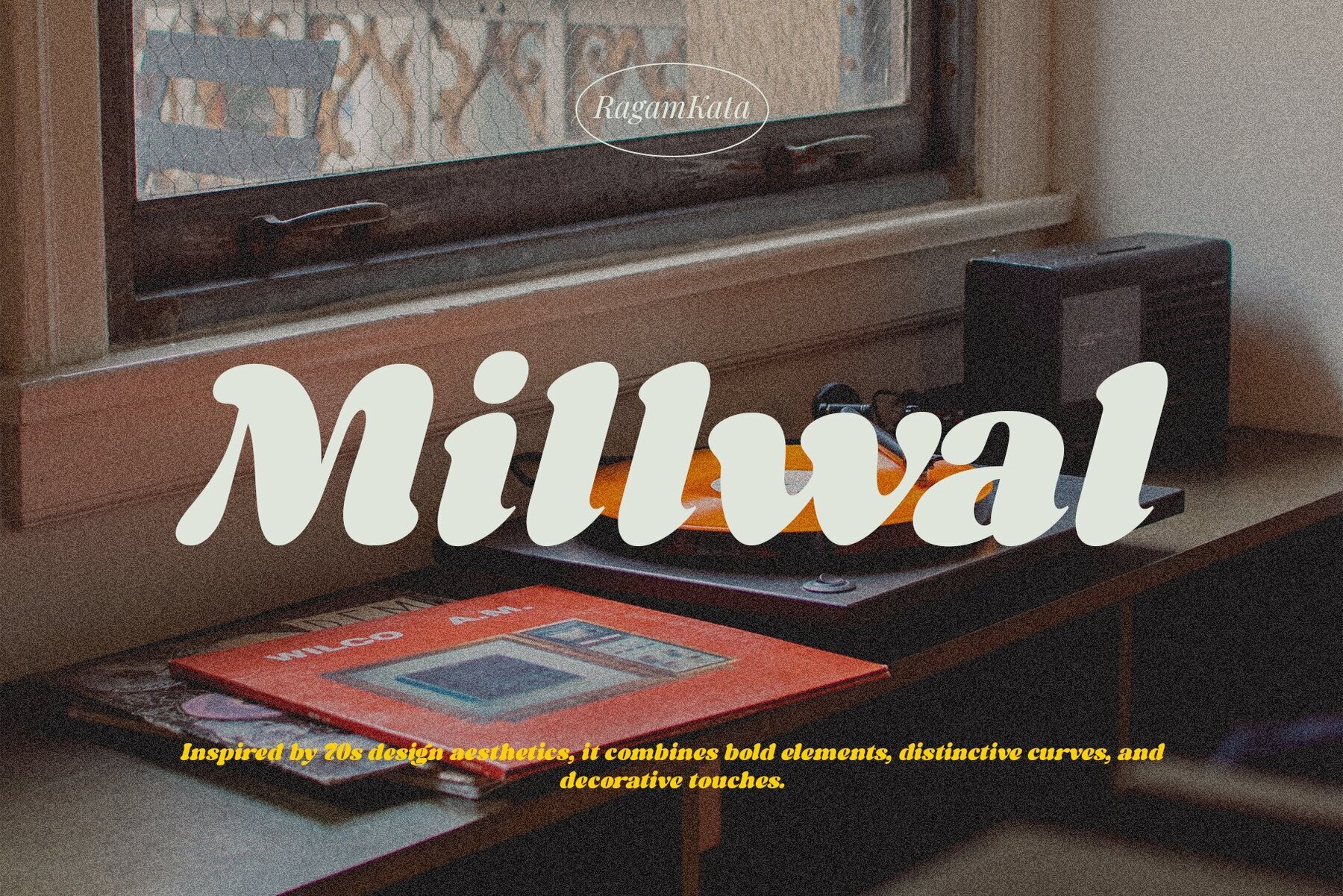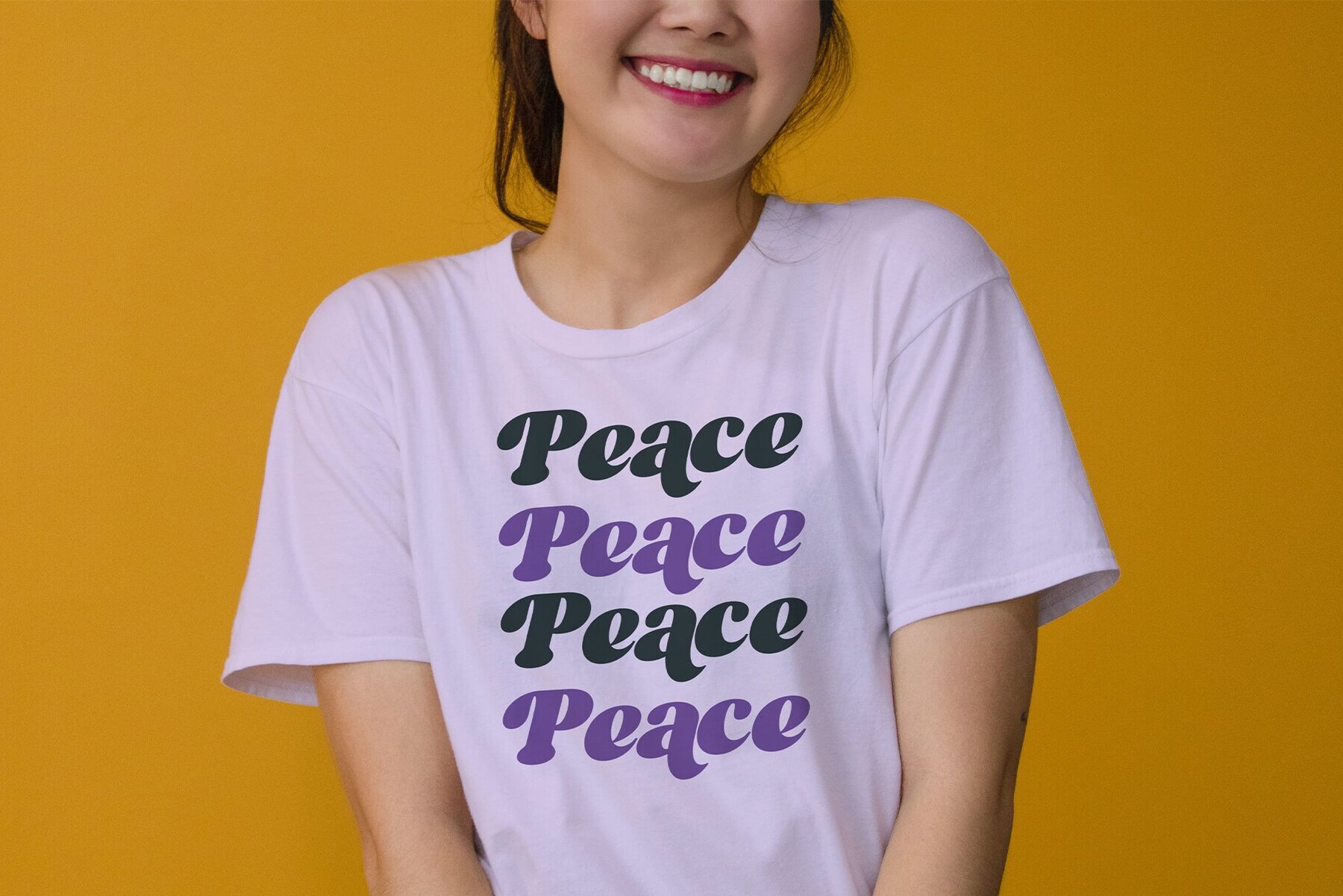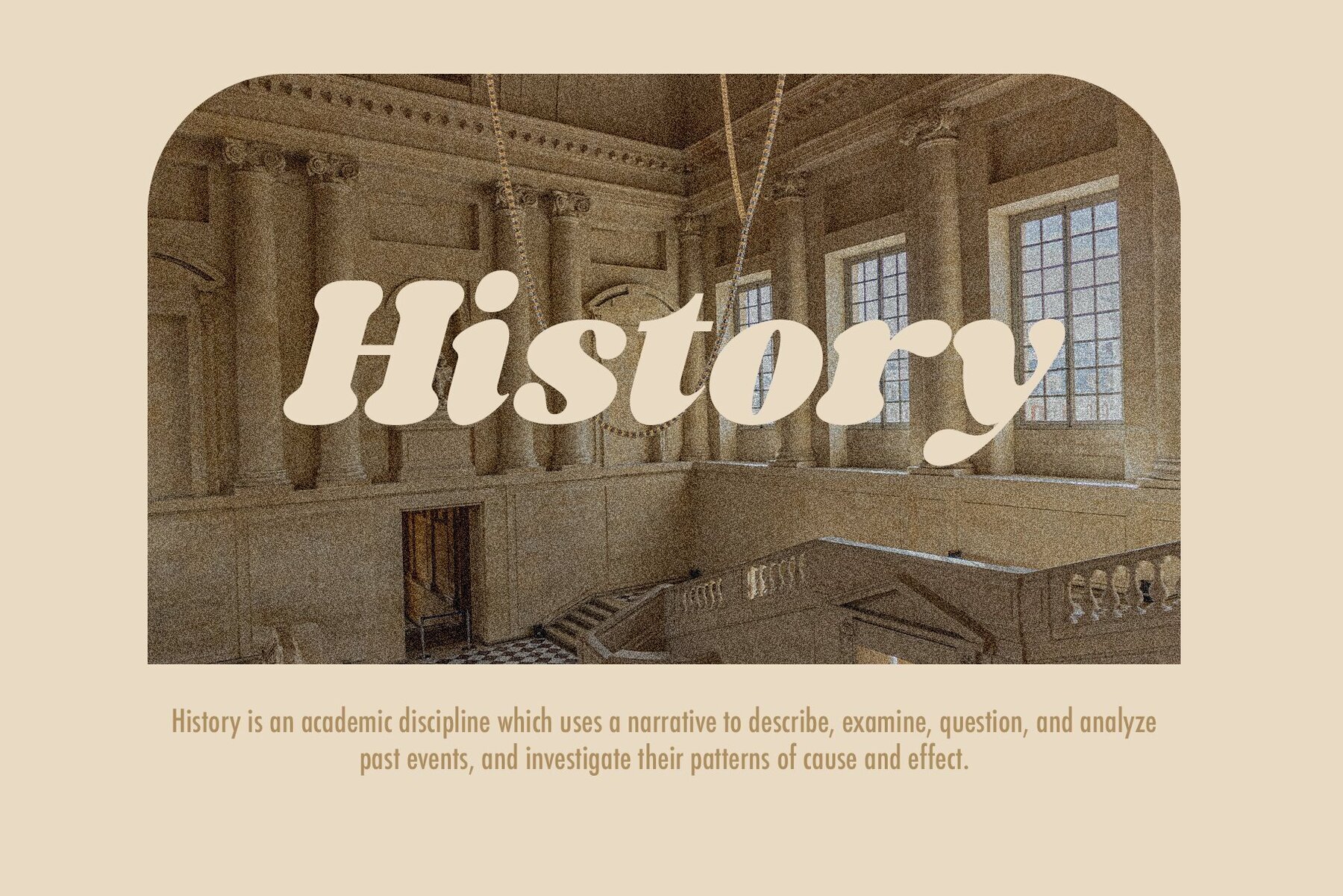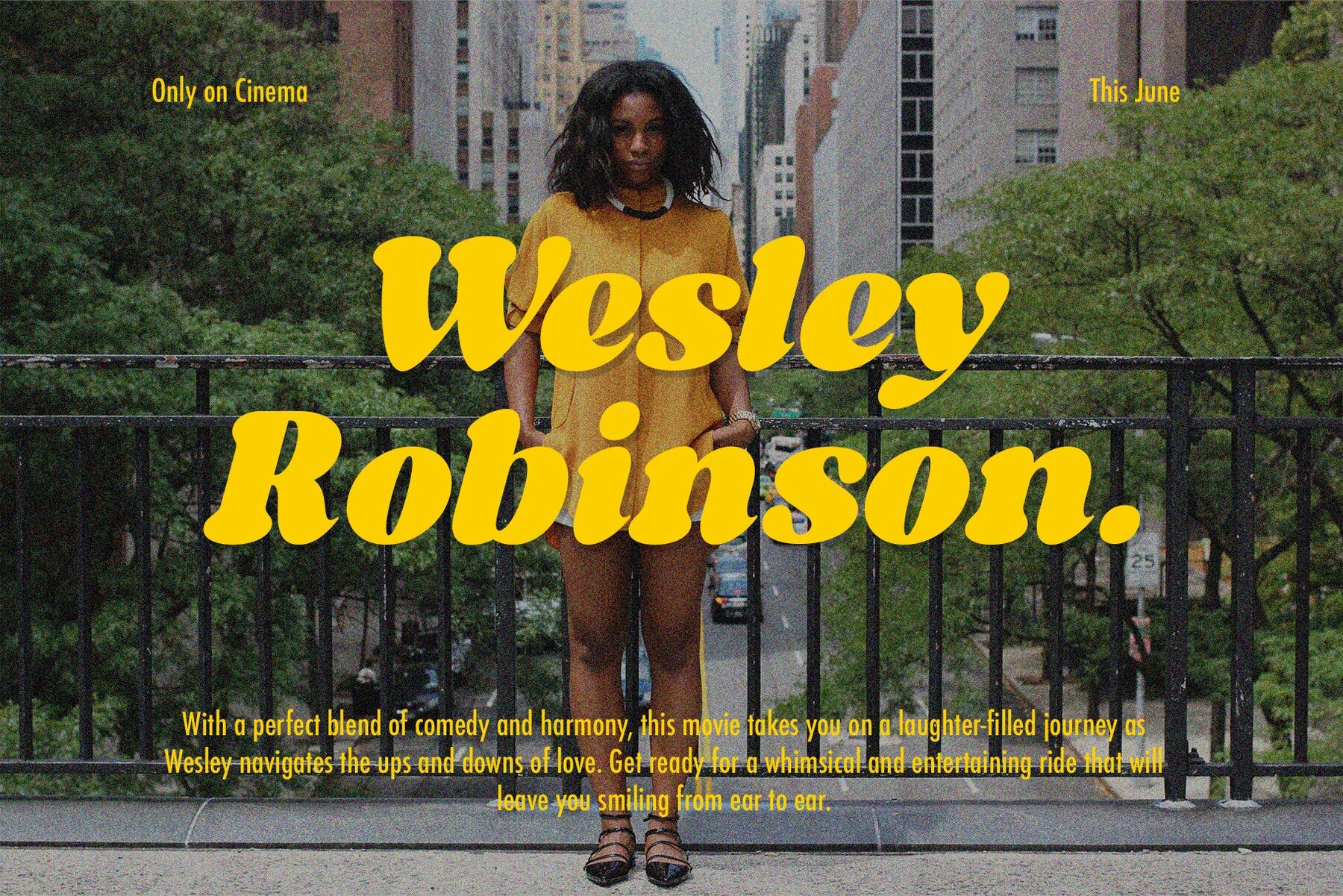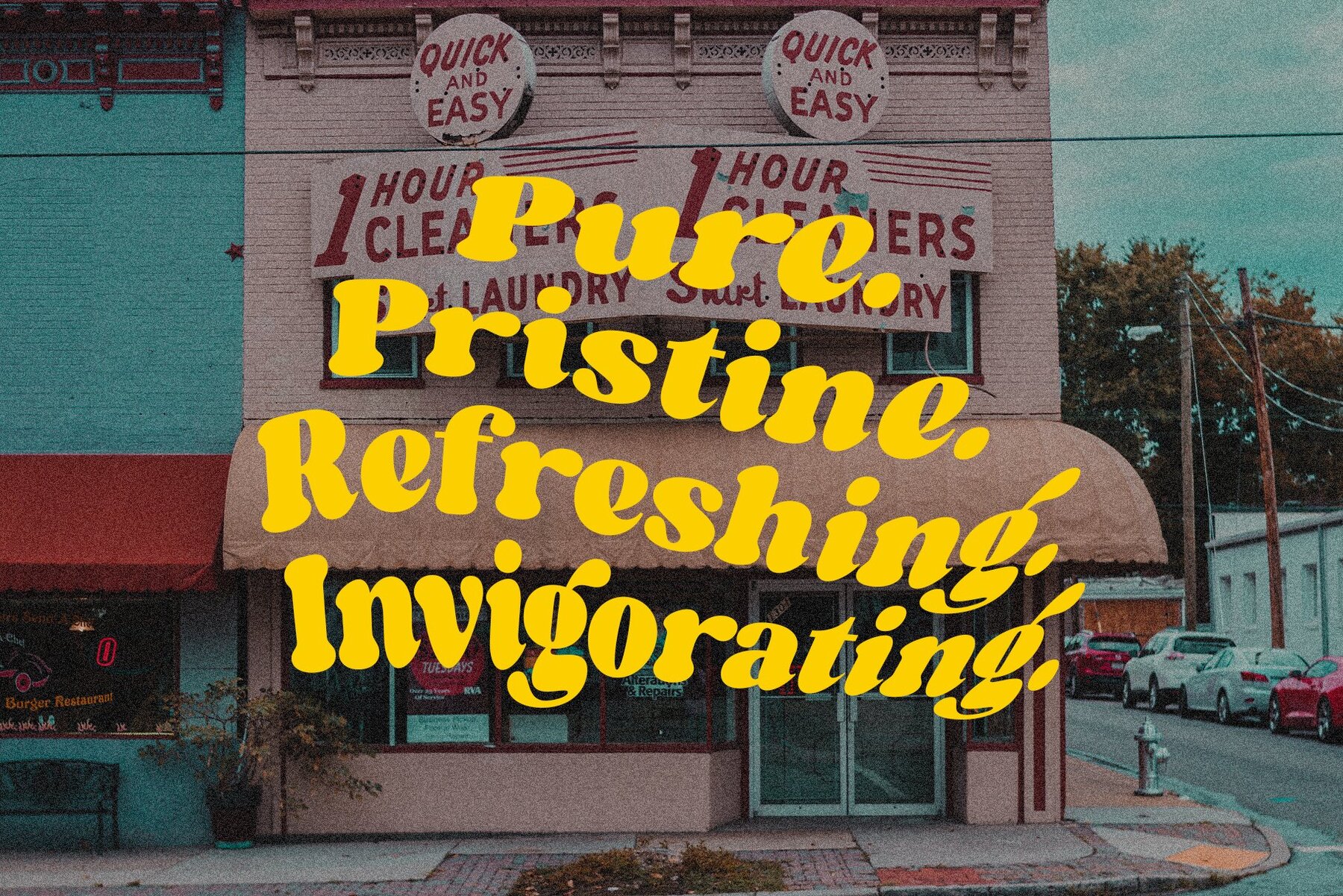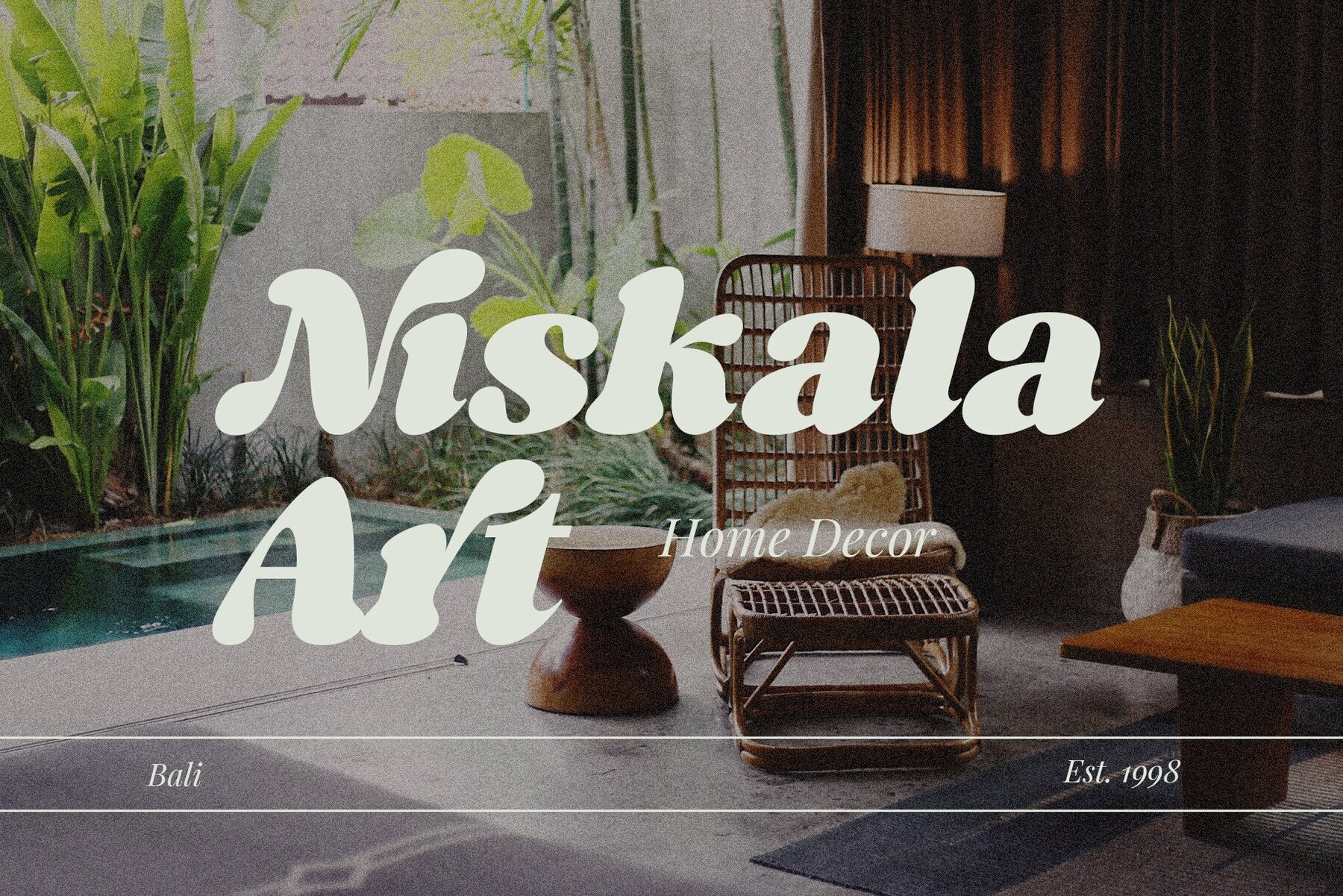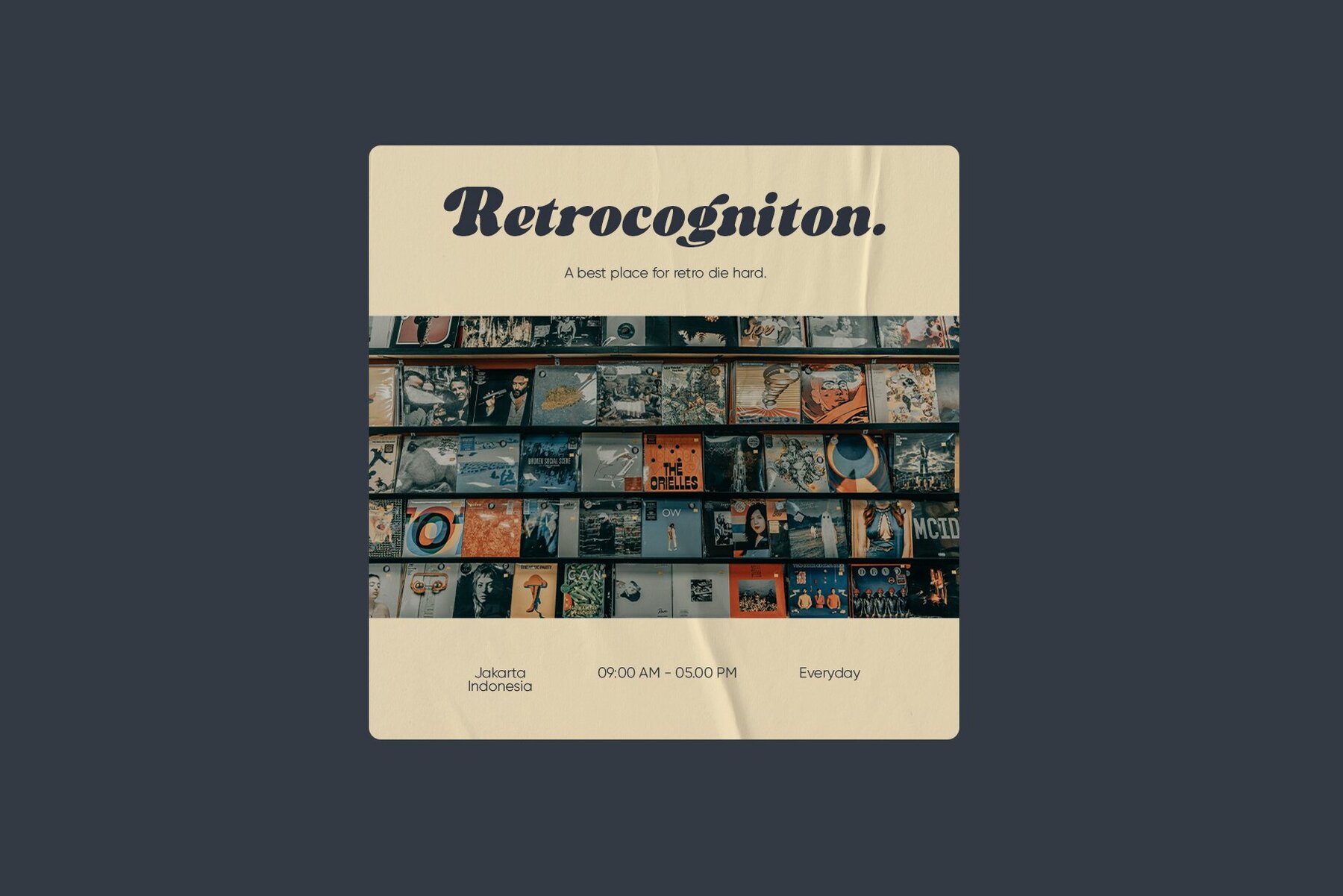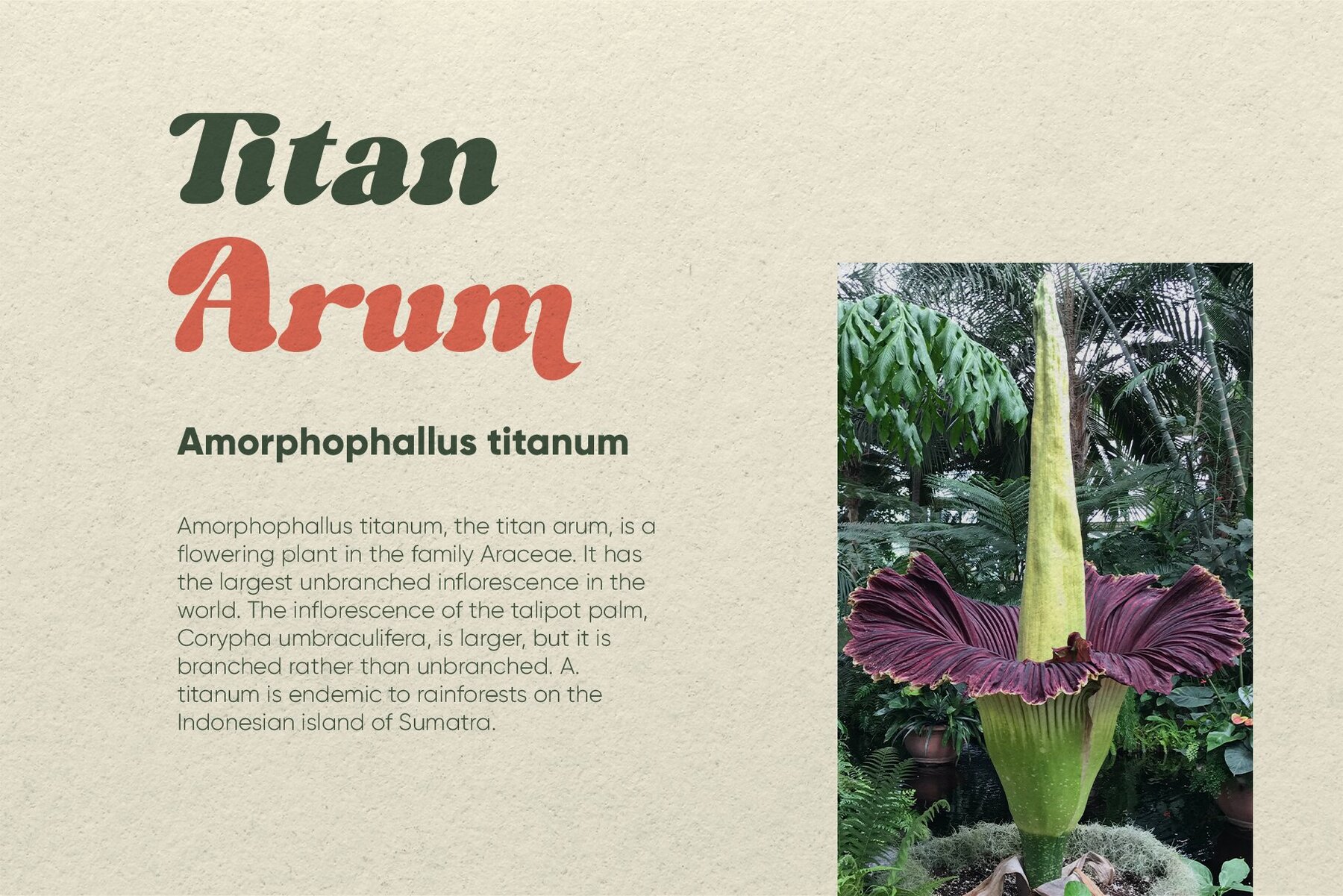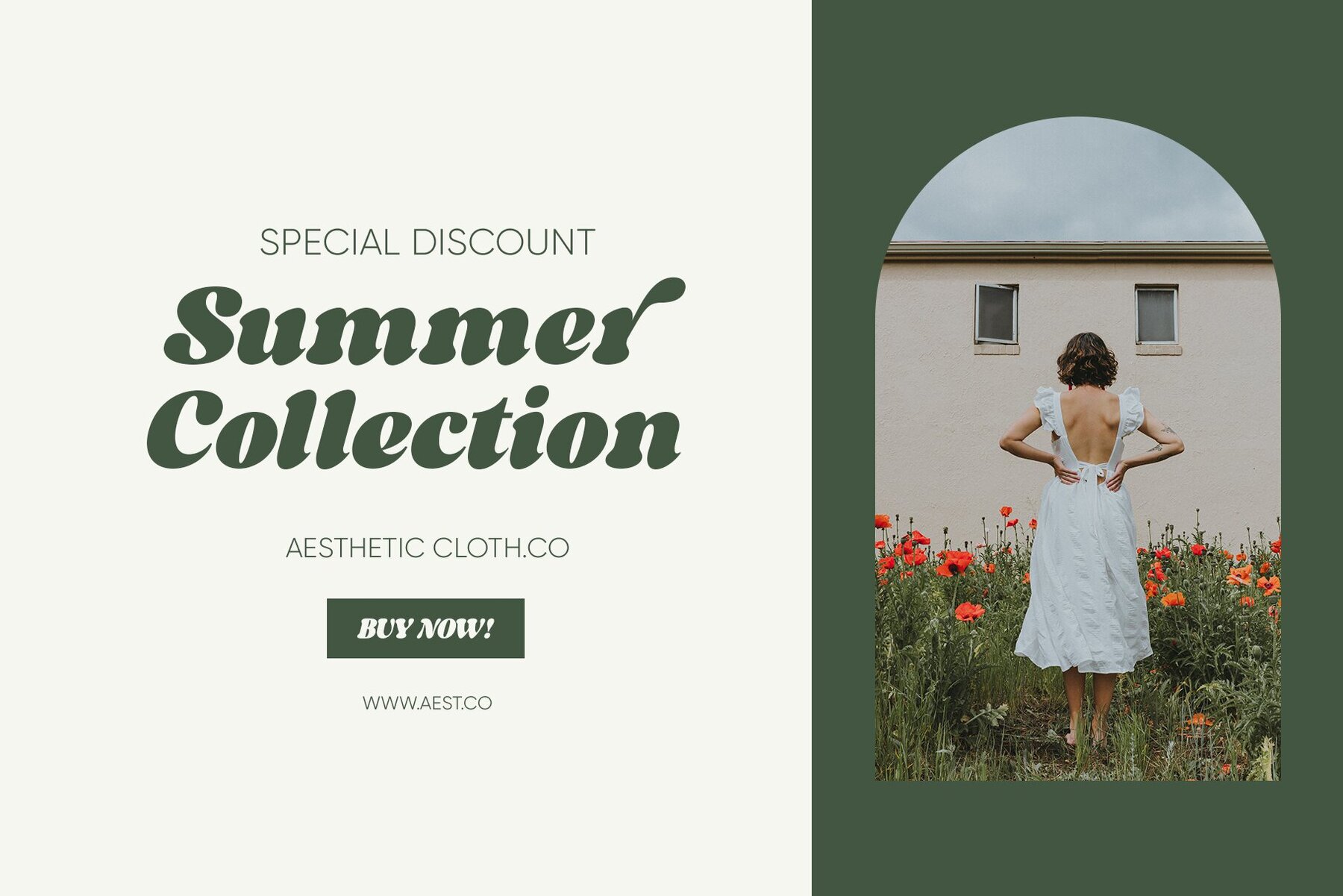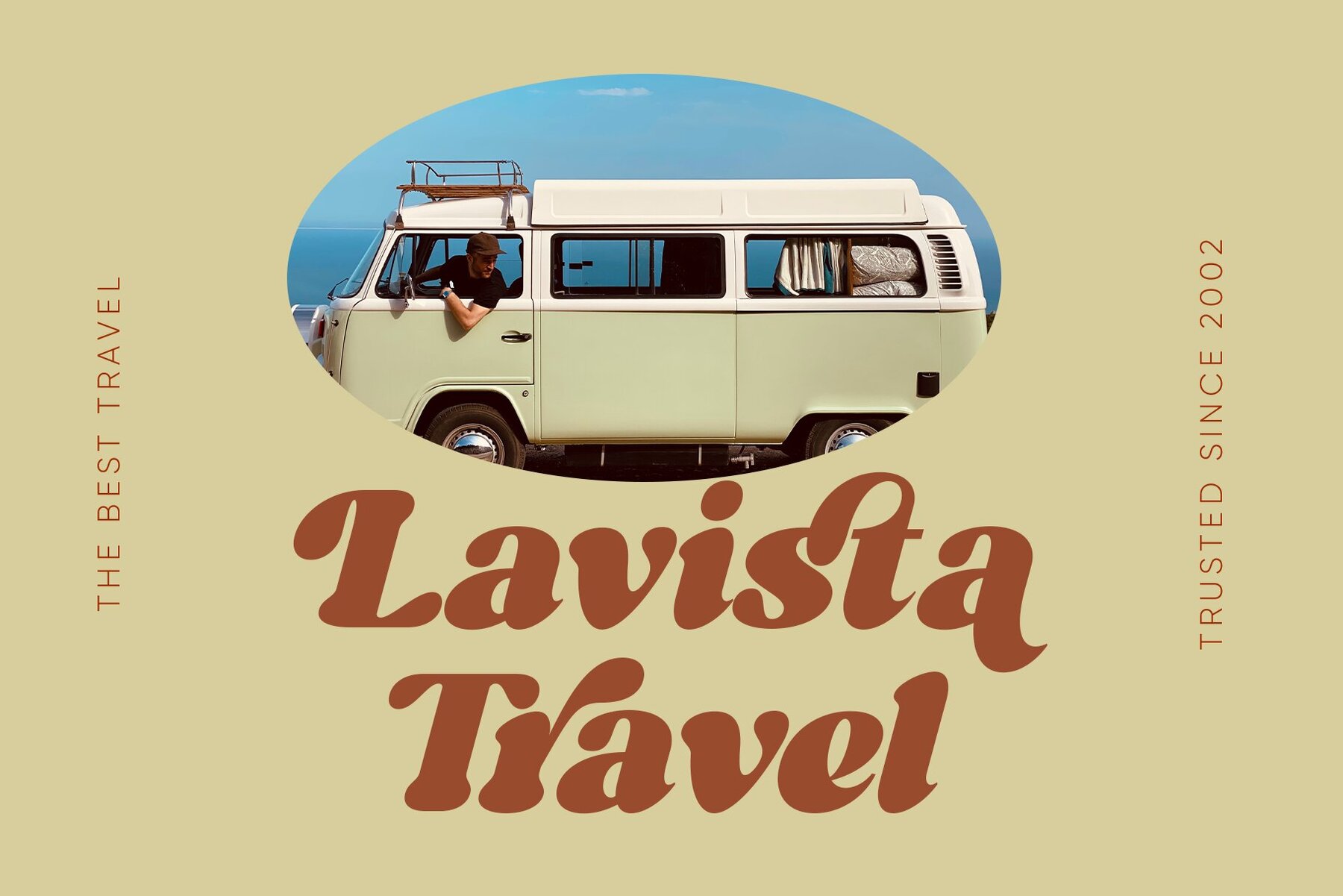
Millwal Font
Millwal Regular
Are you a fan of vintage aesthetics? Millwal is a top-tier vintage serif font that stands out in the realm of typography. Crafted with utmost precision by the talented designer, Ragamkata, this font is not just an ordinary typeface but a dynamic toolkit offering numerous alternate features for each letter. Every alphabet comes with a unique characteristic that brings an eye-catching twist to your design projects, accentuating them beyond the ordinary. Notably, its versatility and text-variant richness make Millwal a dream come true for graphic designers and marketing firms, delivering the precise vintage touch they crave in their artwork. While preserving the golden charm of vintage serifs, Millwal goes beyond to load your design palette with distinctive alternative styles. Each font style simmers with creativity, promising a unique and alluring result for your design projects. It not only complements your design aspirations but turbocharges them, breathing life into your creations. From posters and banners to logos and displays, Millwal scores highly on flexibility, making your design process fun and more engaging. Hop on the Millwal bandwagon and witness your design projects gaining a gorgeously vintage and unique aesthetic appeal.Discover Millwal: Vintage Serif Font, Your New Design Ace